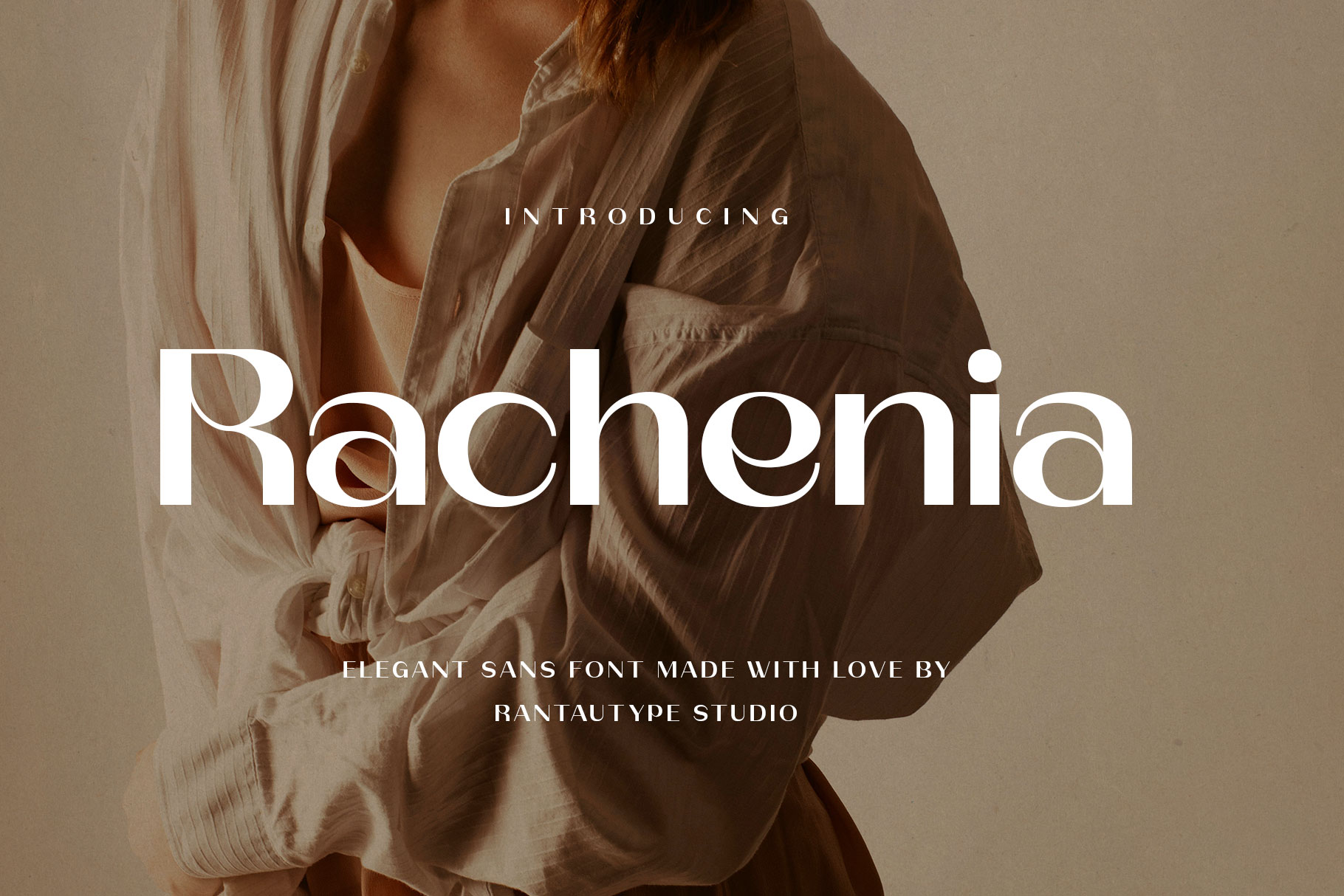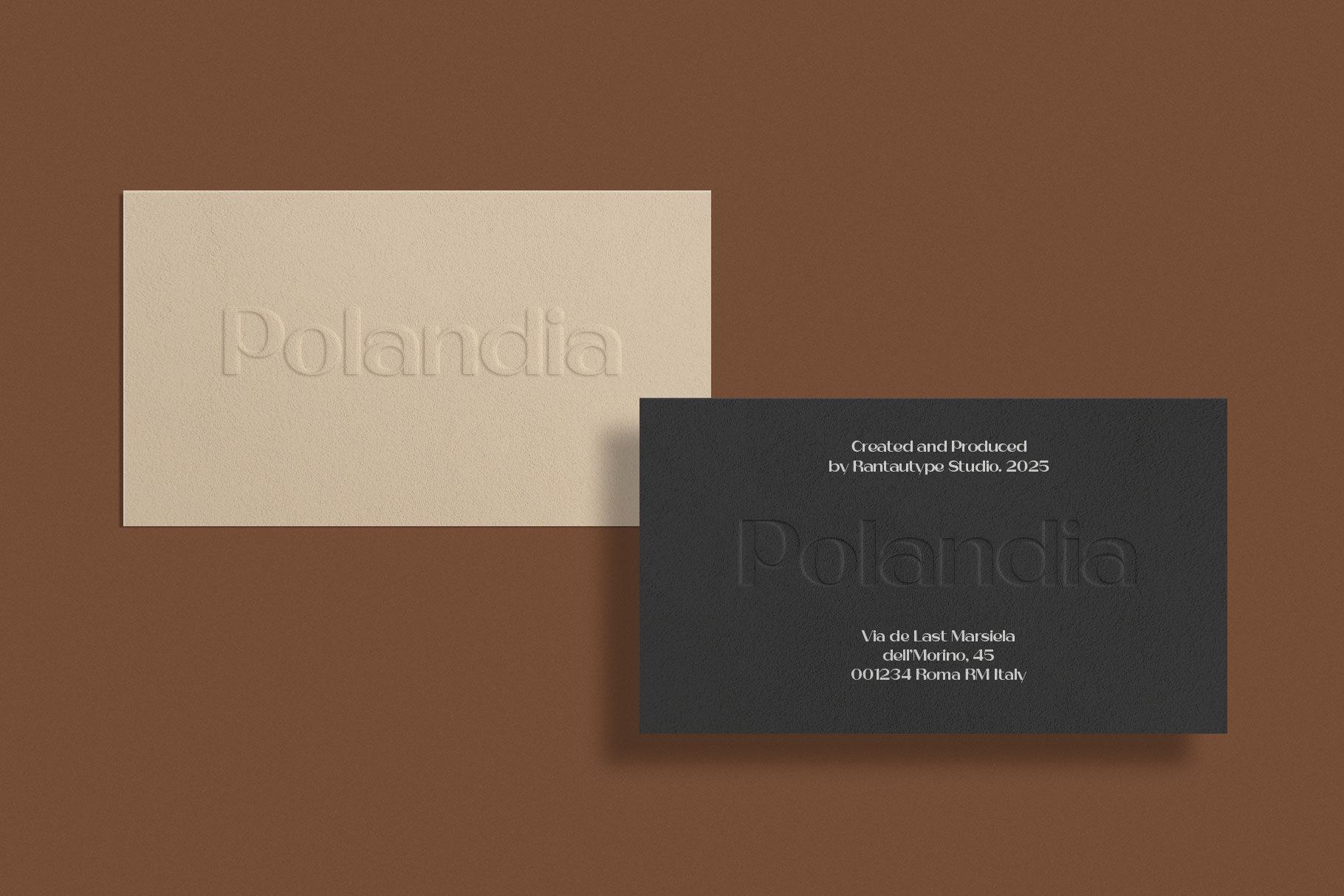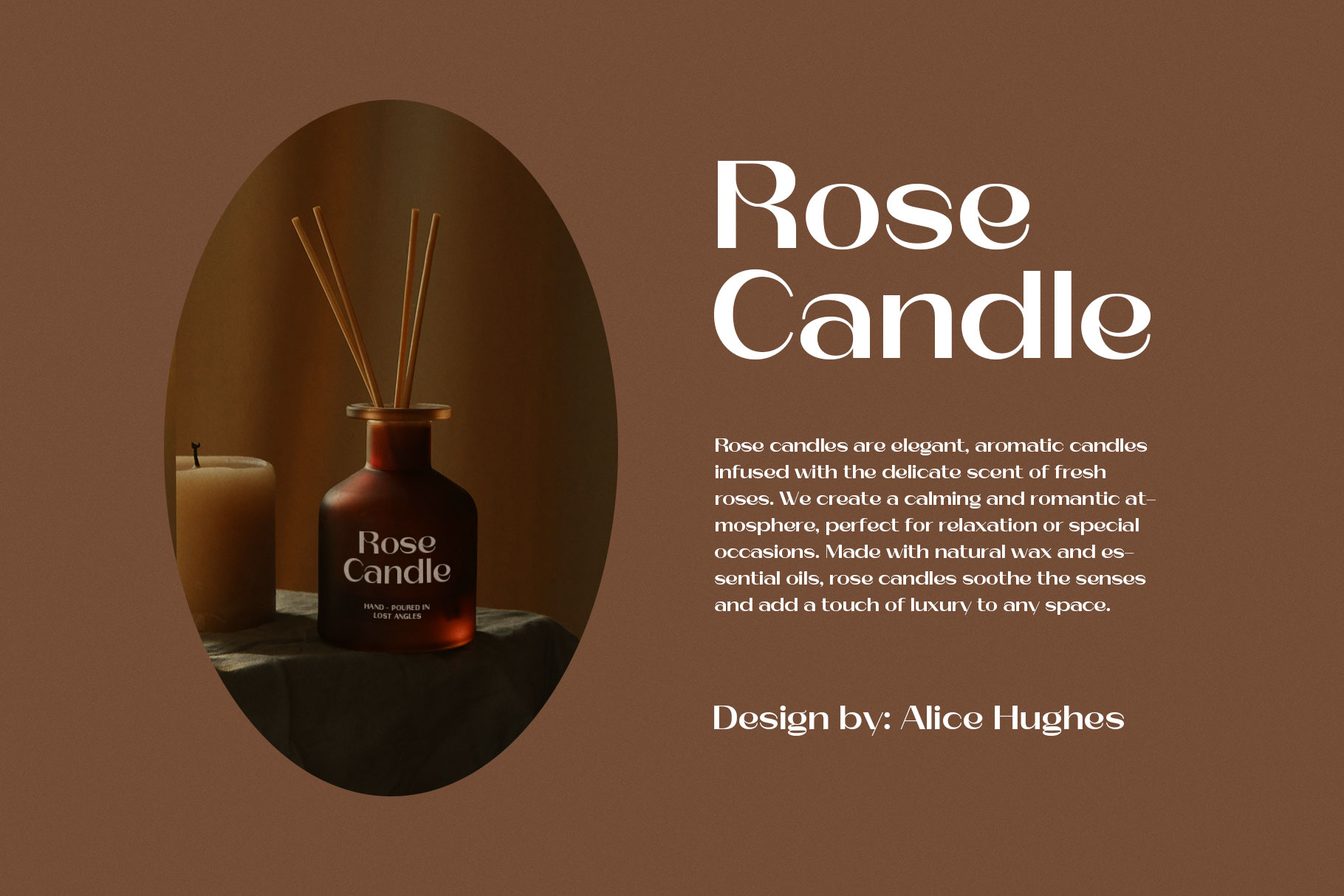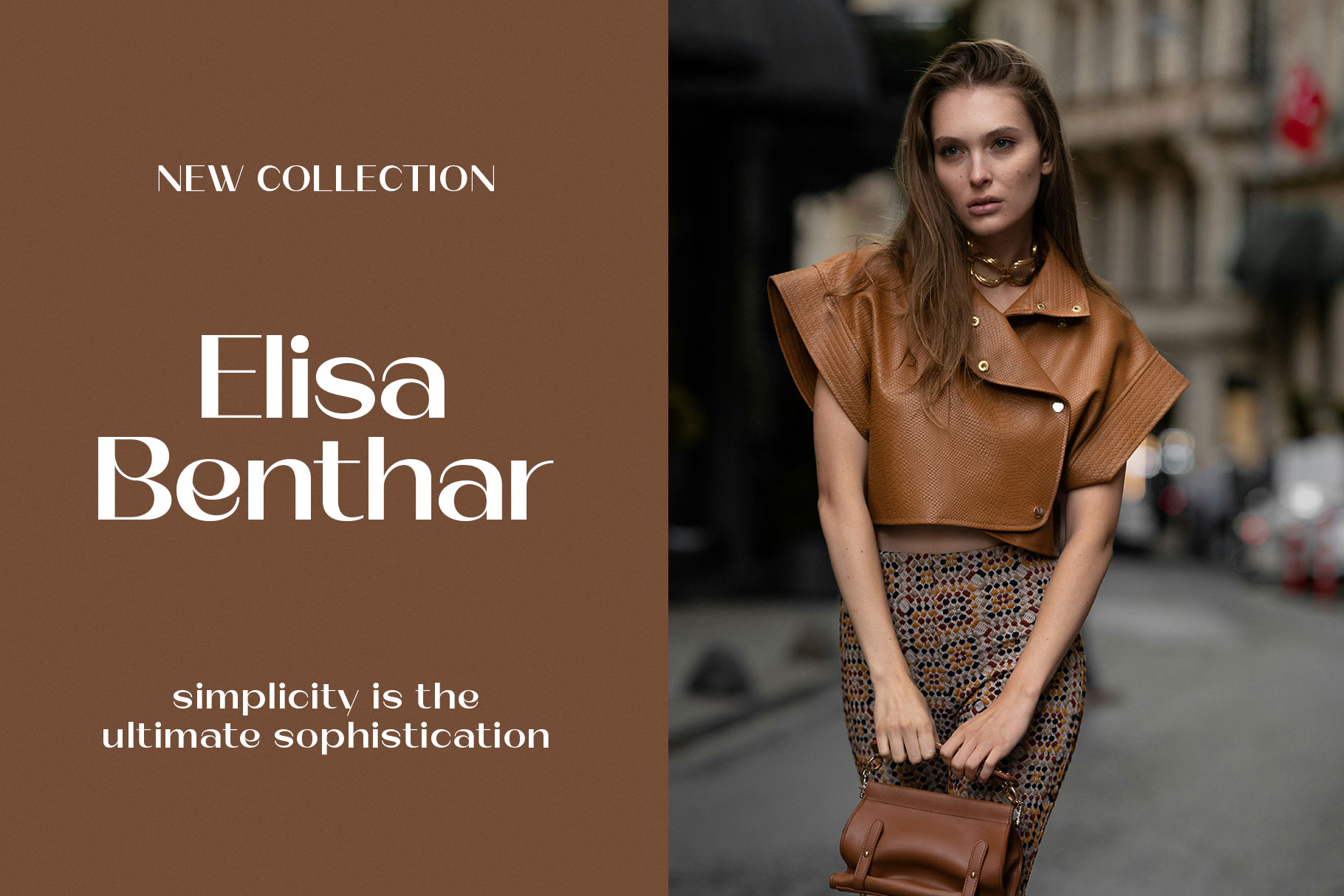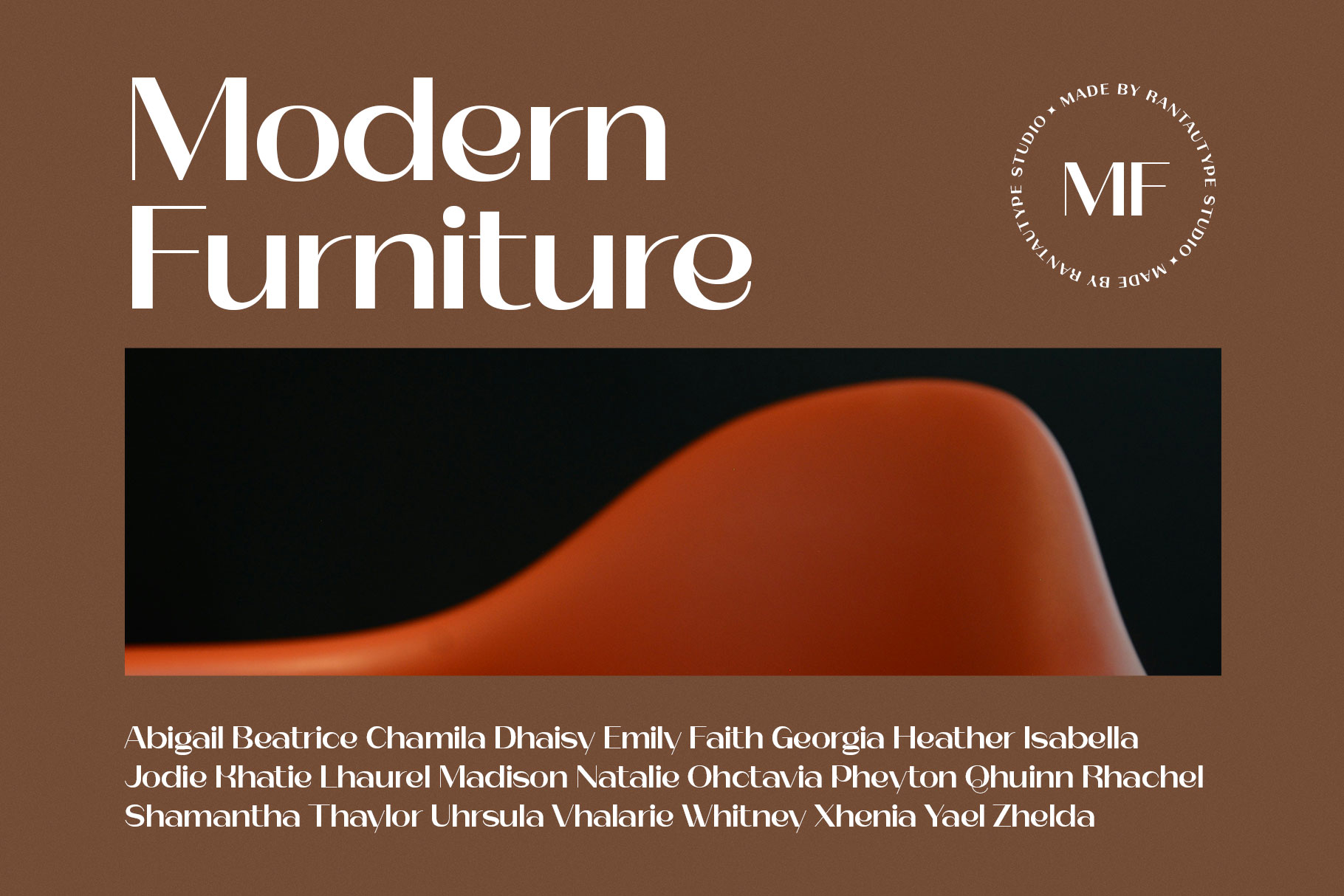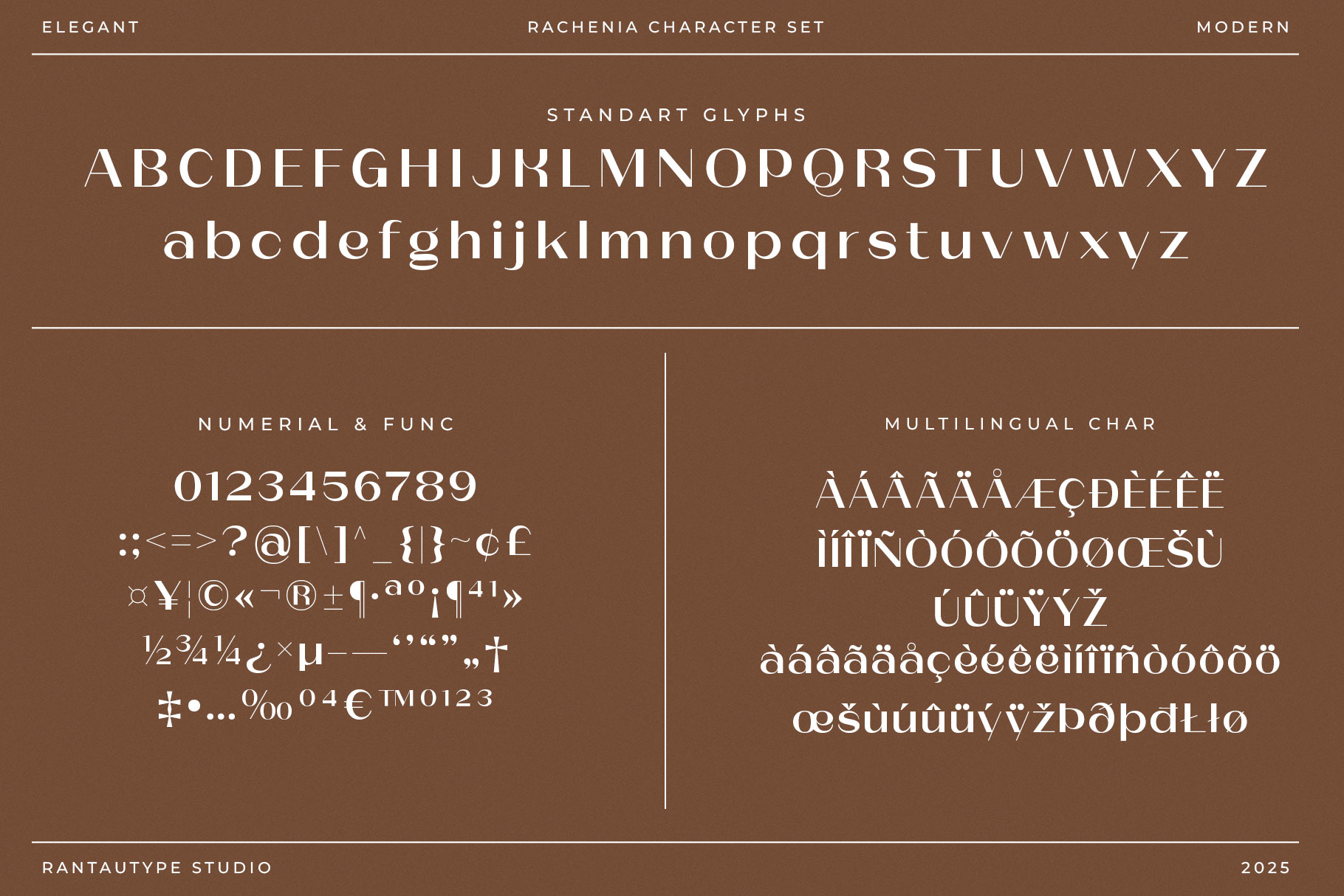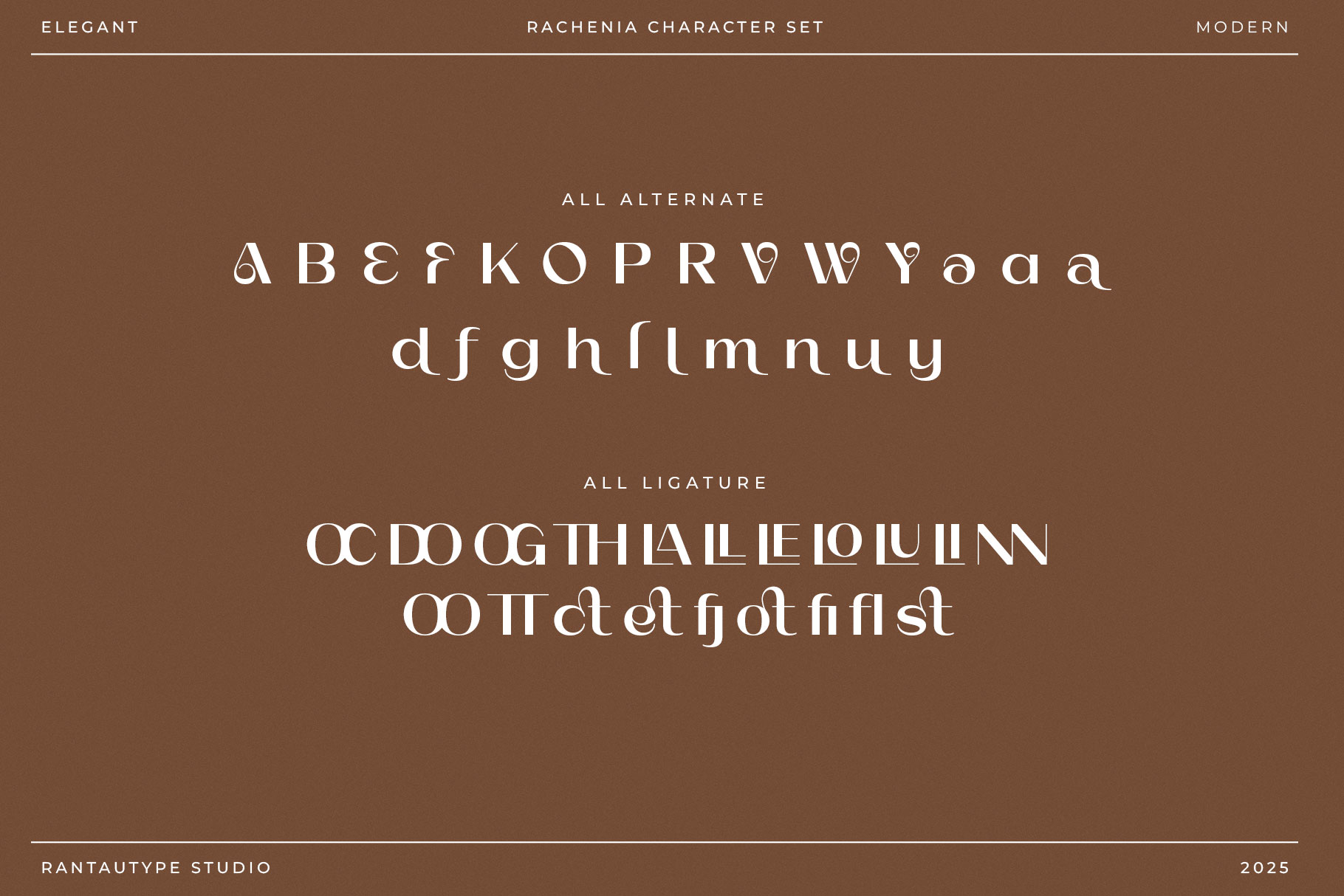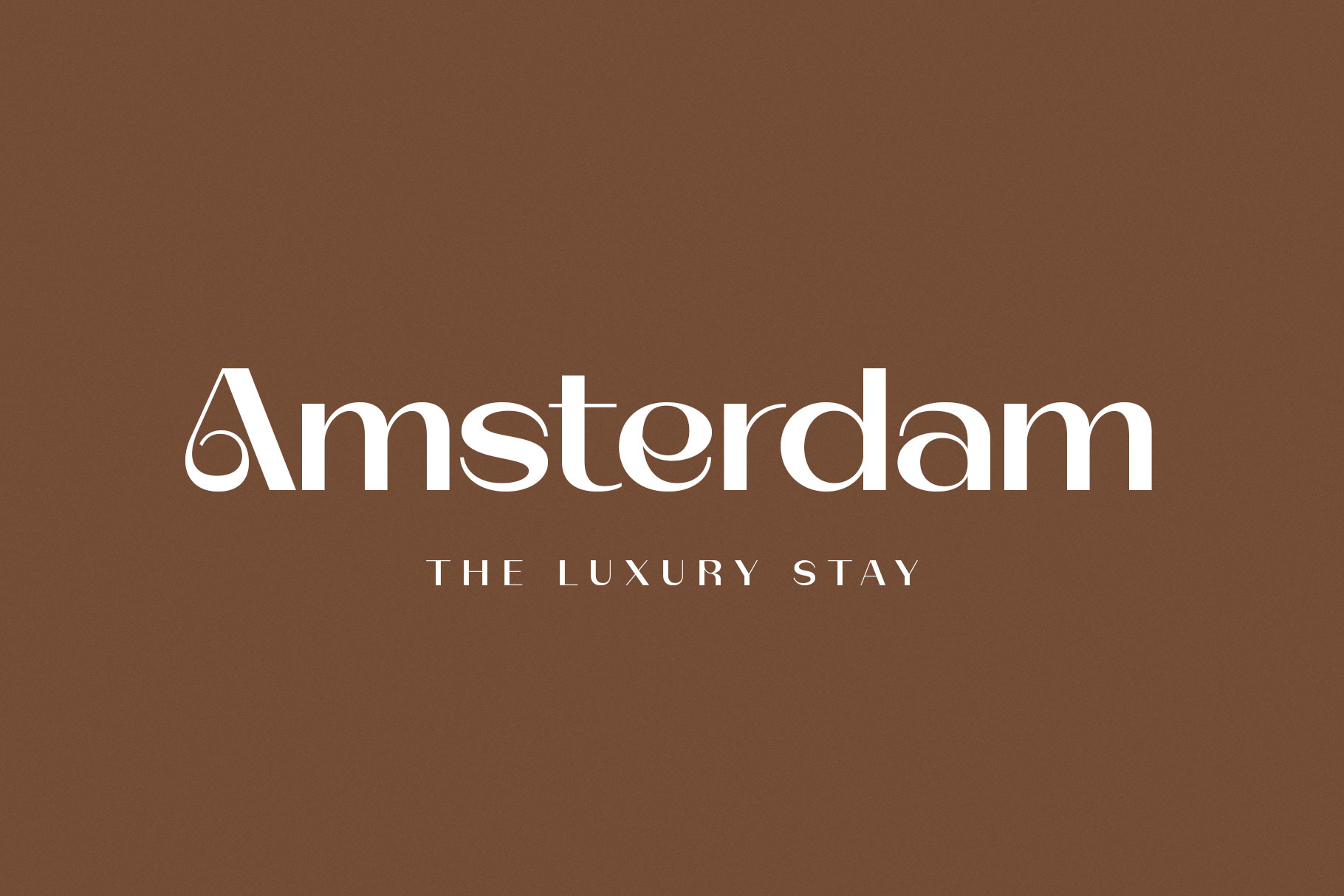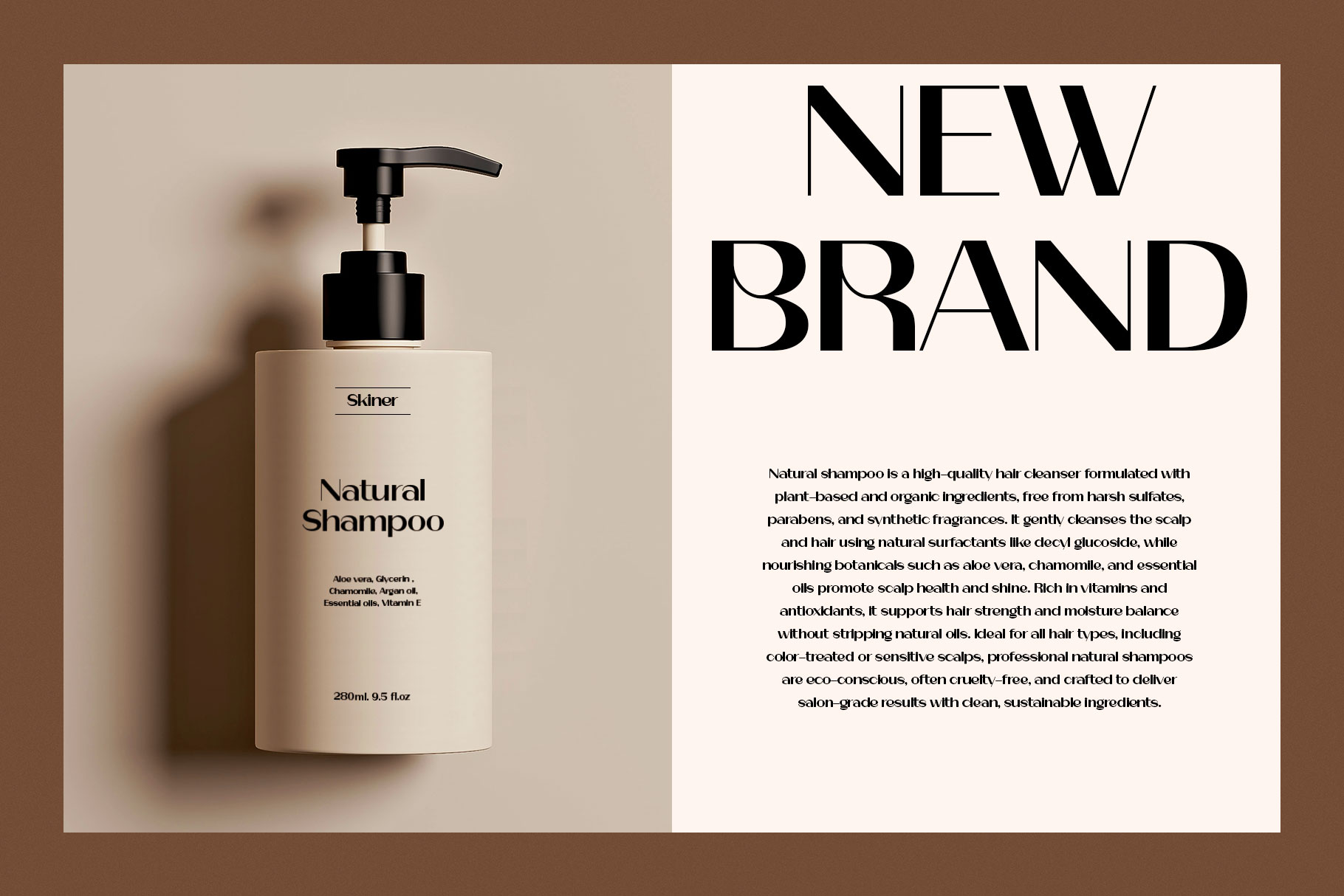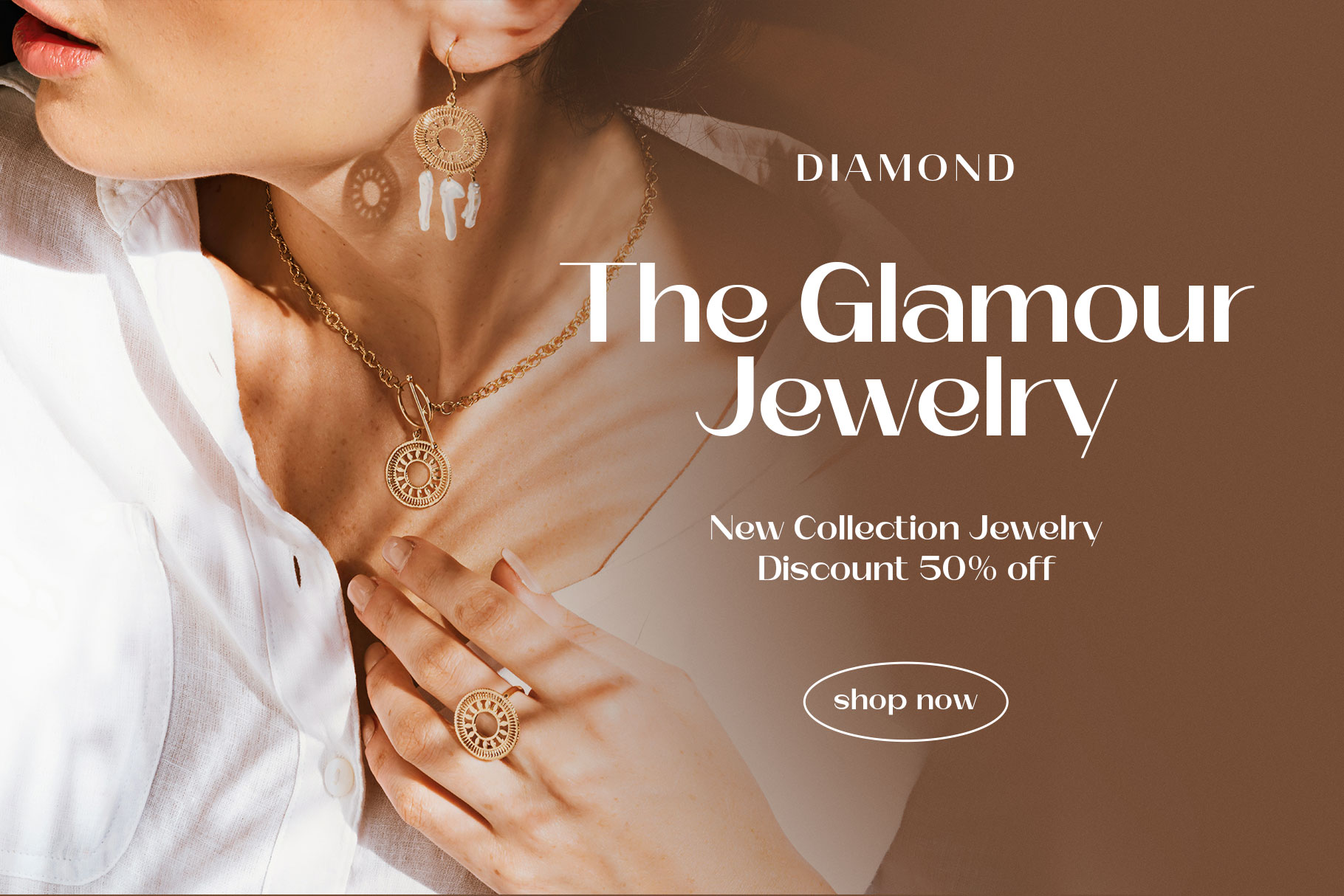
Rachenia Elegant Sans Font
Rachenia is a modern typeface that seamlessly blends minimalism with sophistication. Its clean lines, subtle curves, and balanced proportions exude grace and style.
Rachenia is a perfectly choice for any creative endeavor, chic, lifestyle design such as logotype, advertisements, watermark on photography, stationery, branding project, display and magazine, invitation, corporate brand, product design, label, business project and many other project with modern touch.